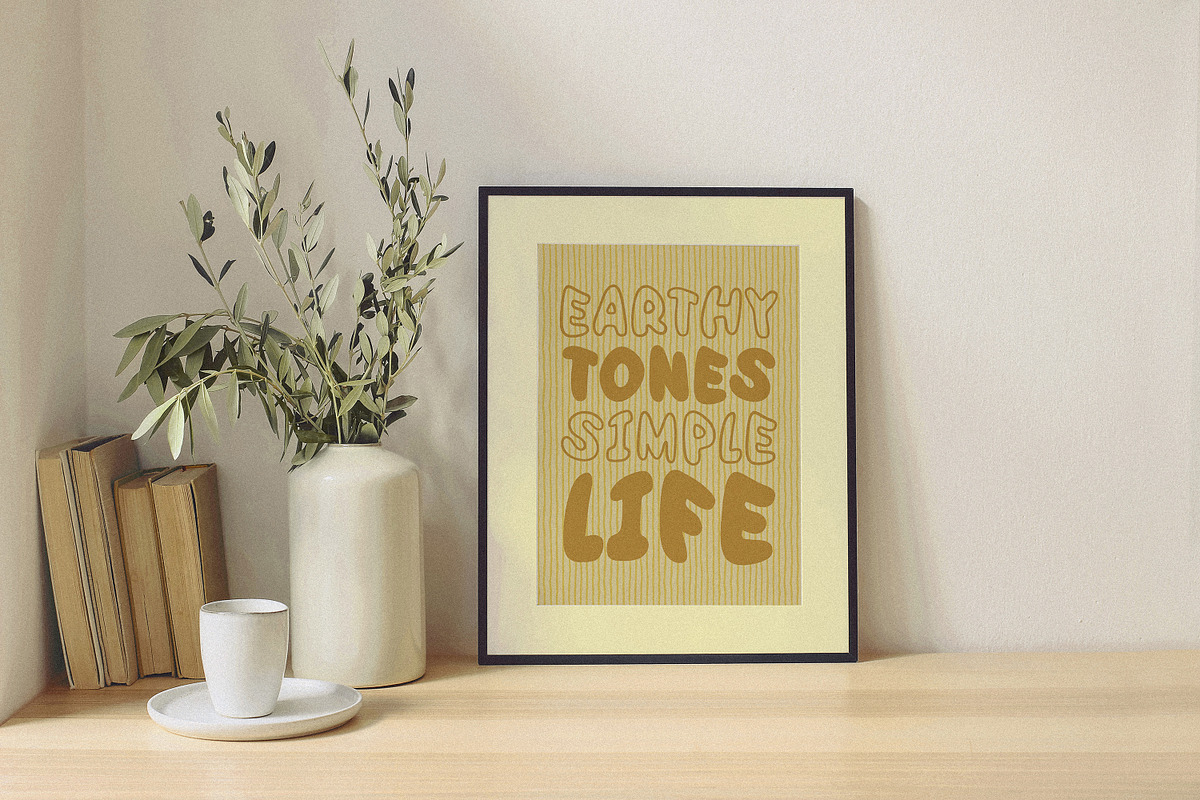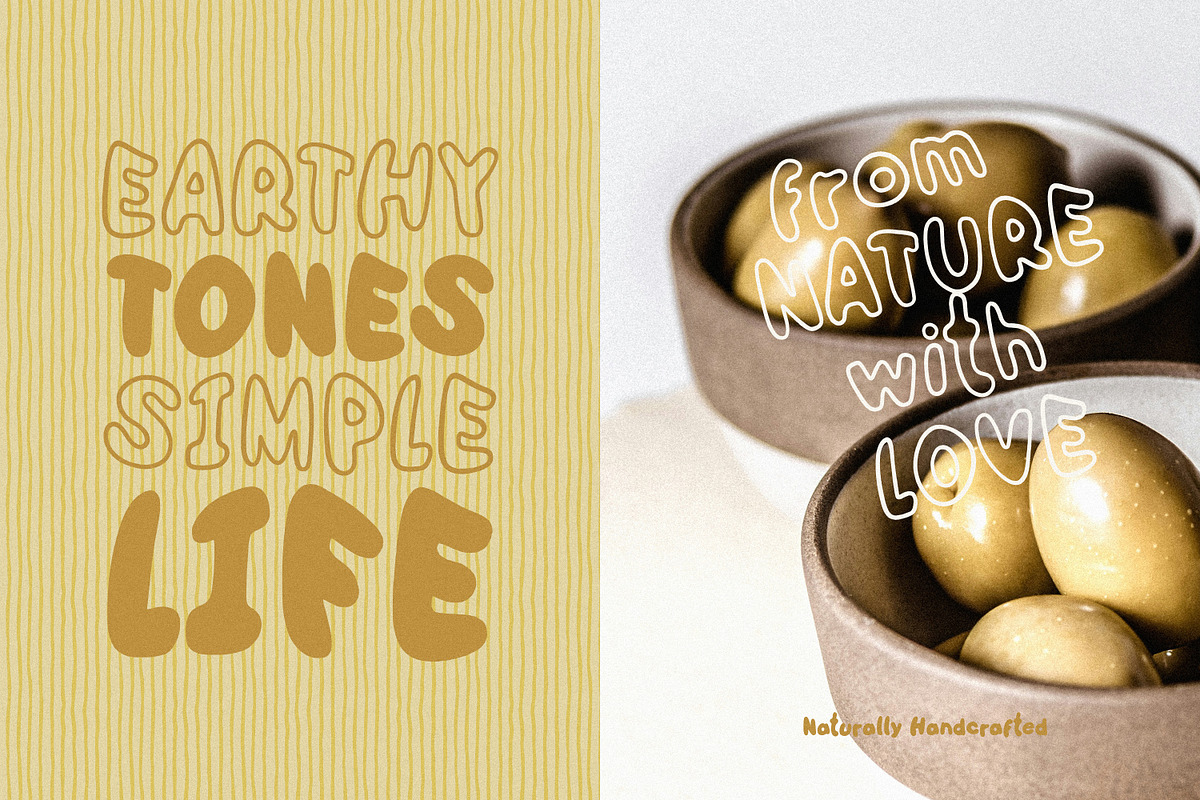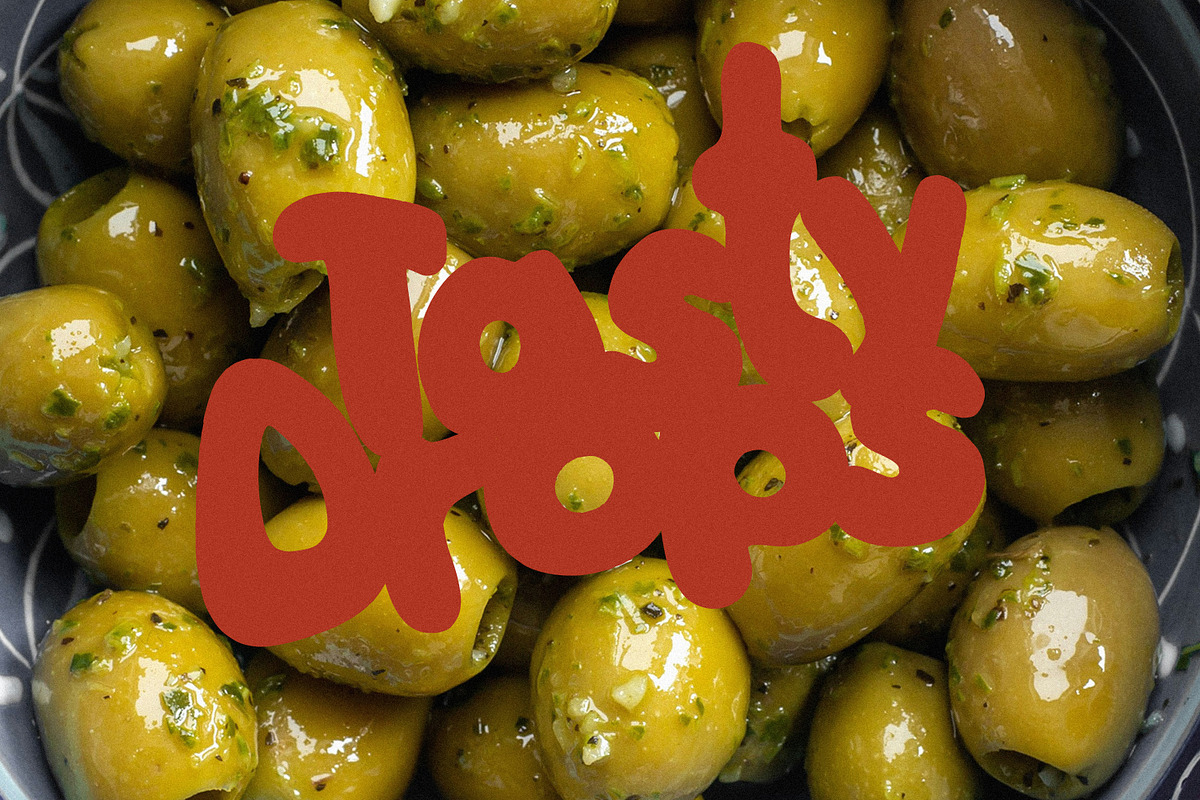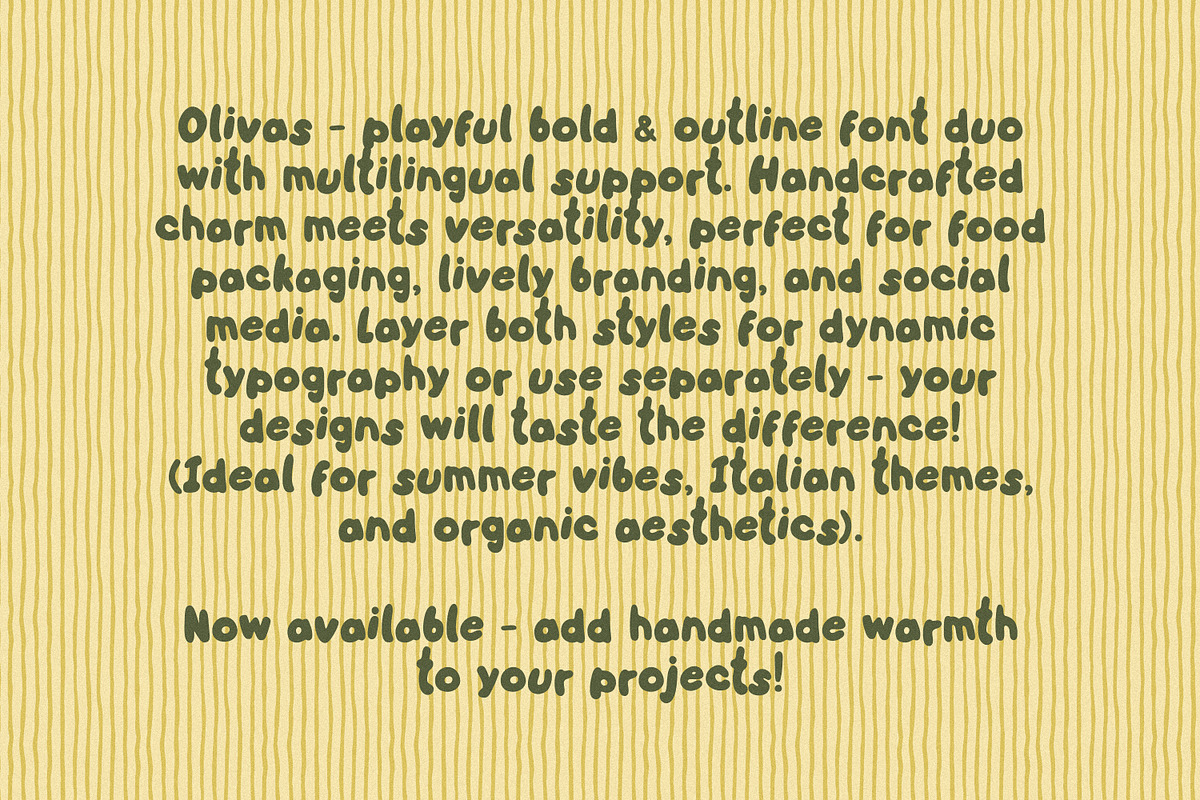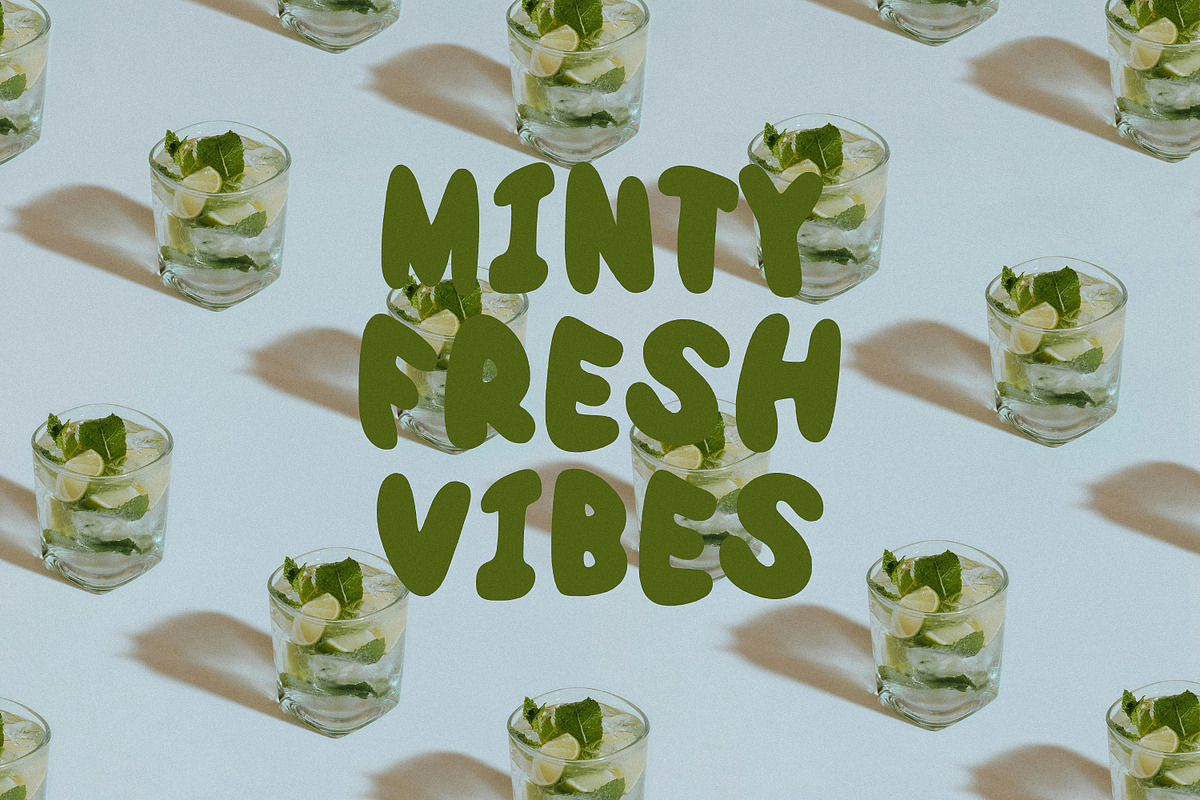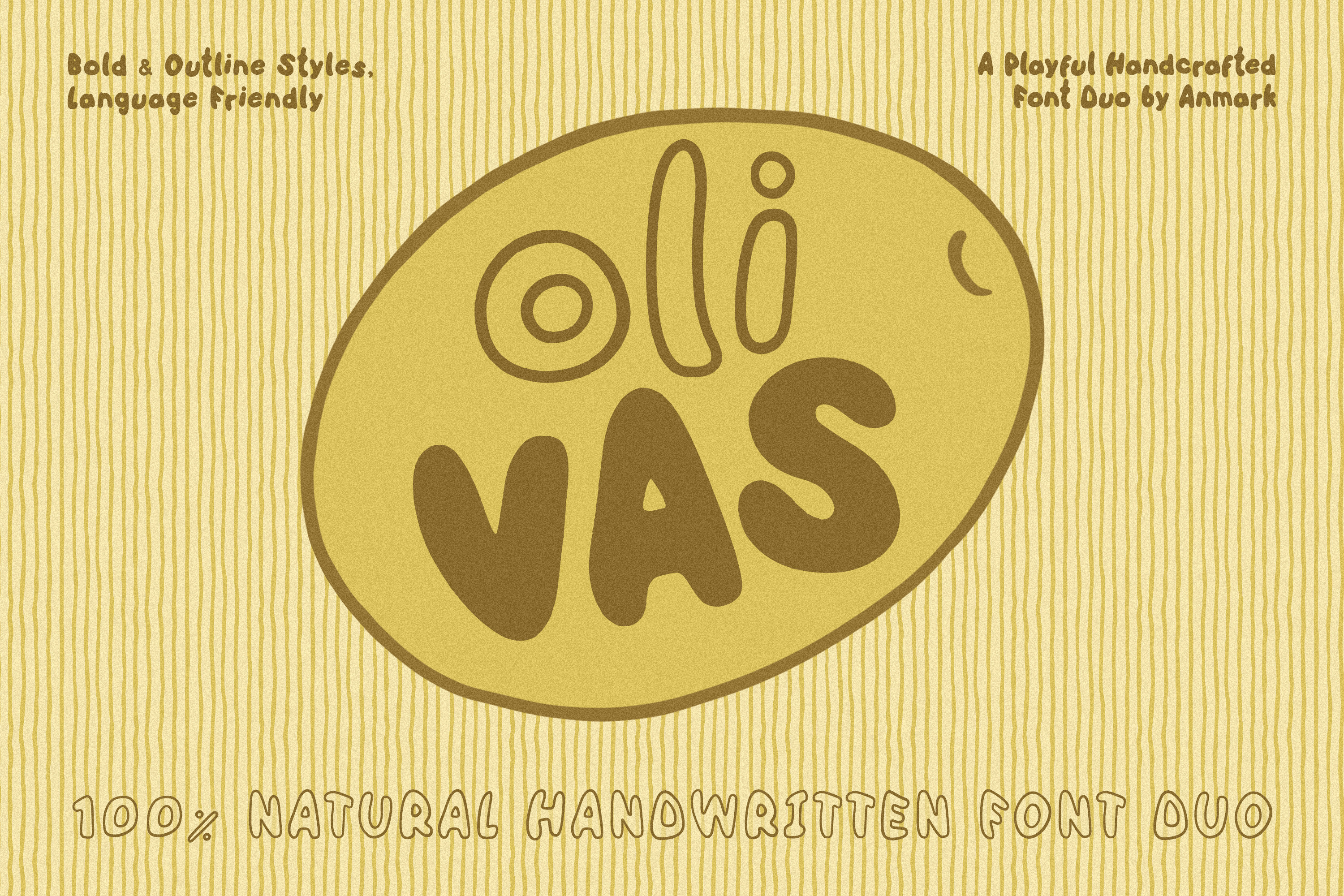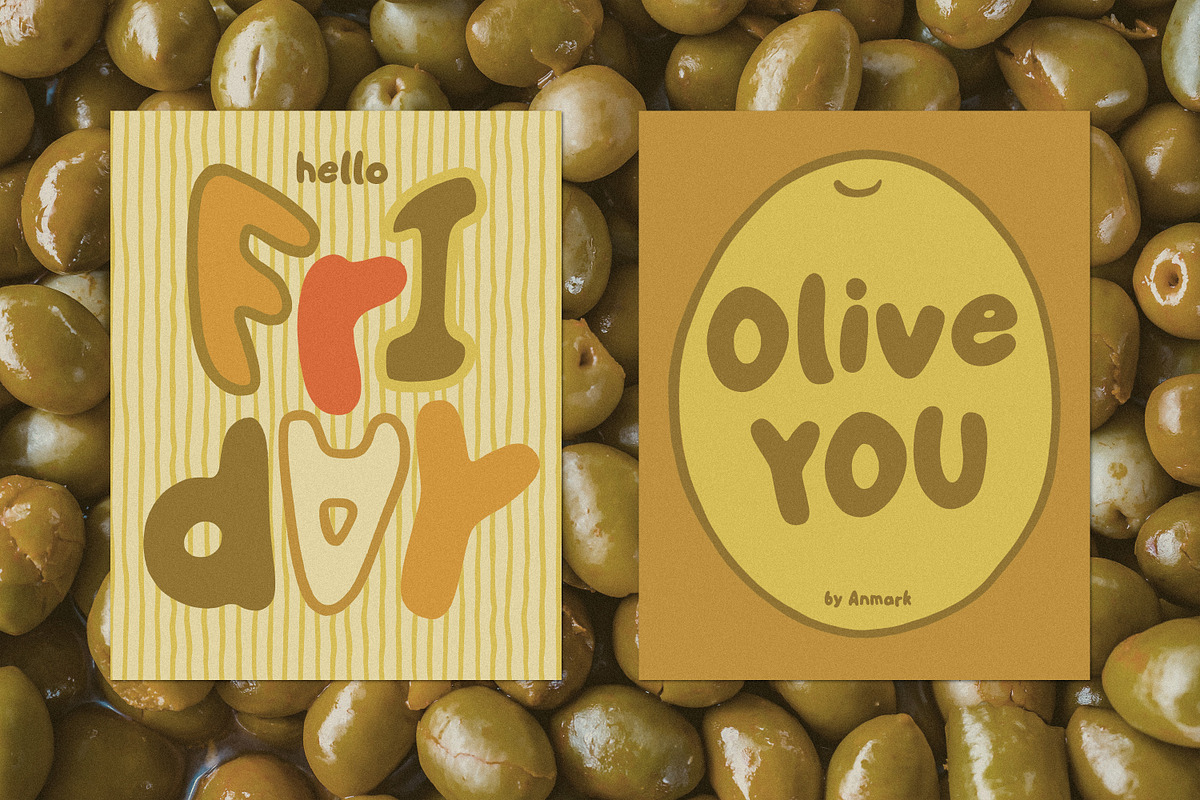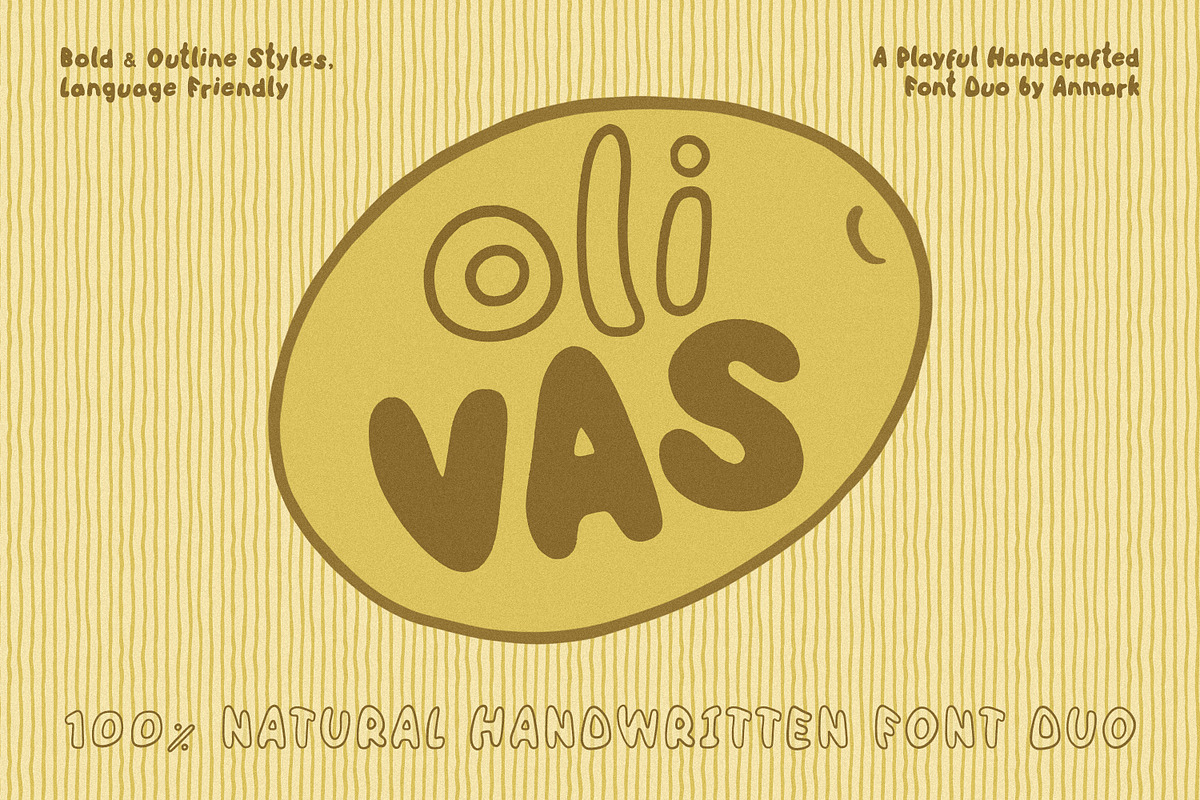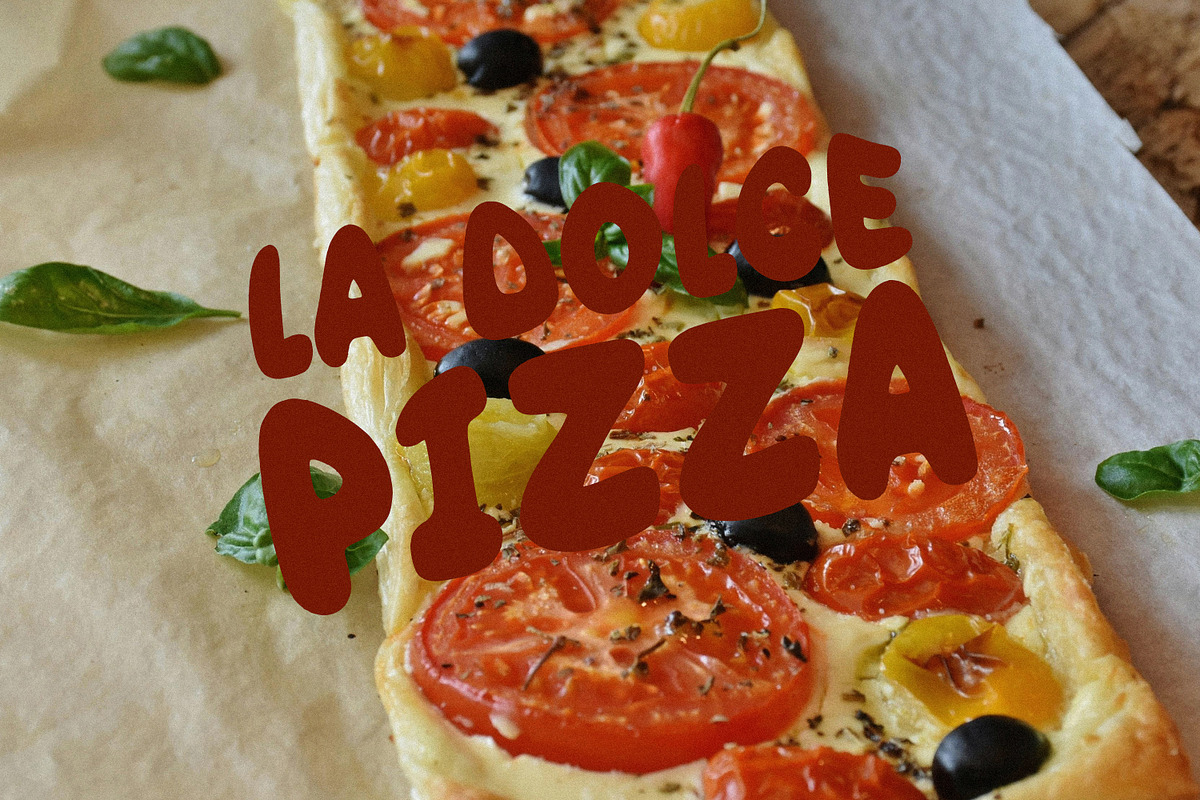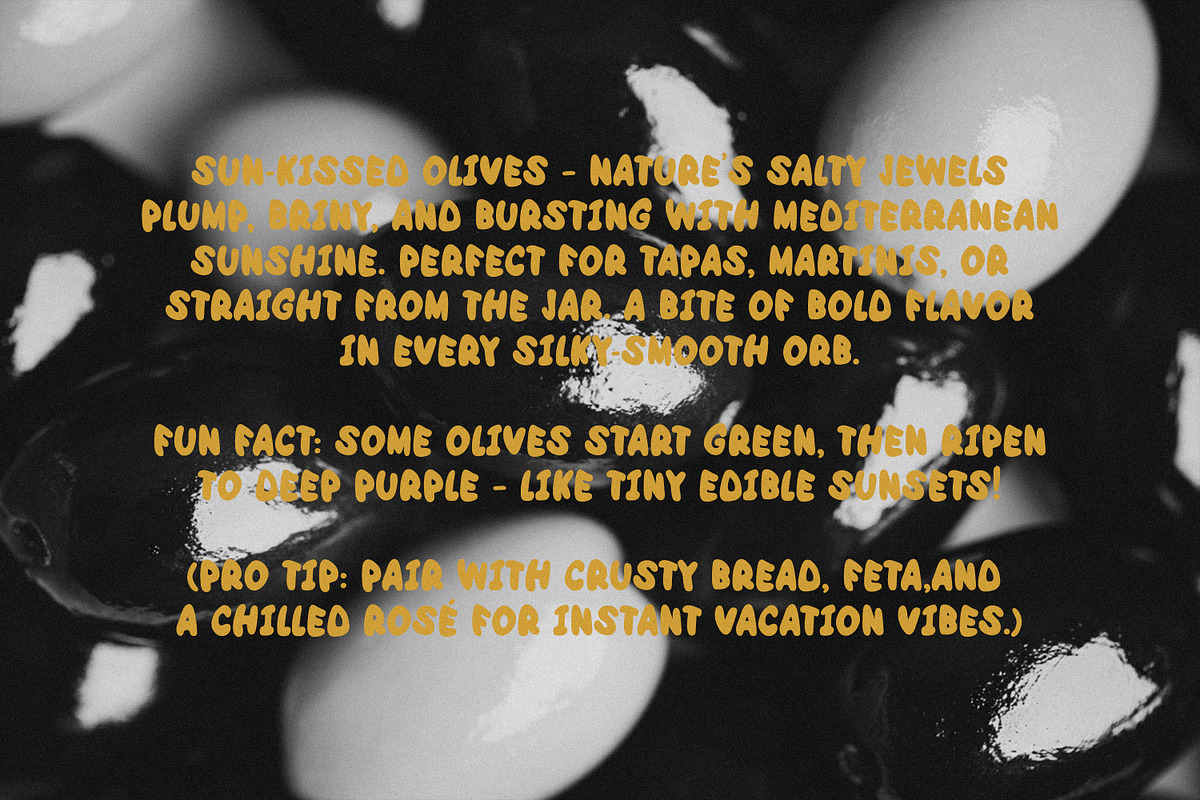
Olivas: Tasty Handmade Font Duo
Olivas - Handcrafted Vibe Font Duo
This pair of bold and outline fonts features subtle handmade imperfections, giving your designs an authentic organic feel. The set includes complete Latin character sets with numerals and standard punctuation.
Ideal for food packaging, artisanal branding, and hospitality projects where a personal touch is needed. The bold version works well for headlines, while the outline creates elegant layered effects.
For best results, combine with natural textures and earthy color palettes.